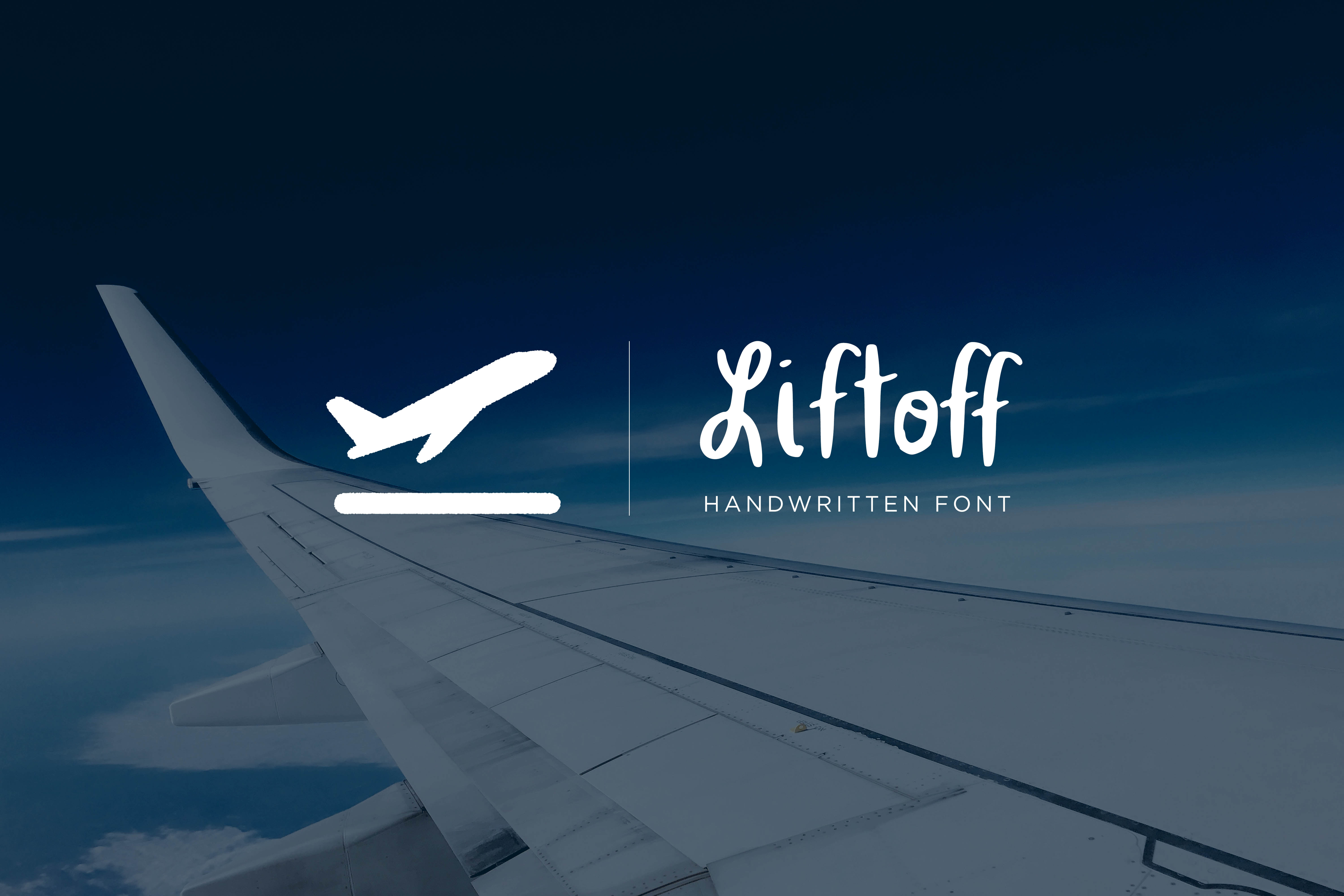
Liftoff Font
A fun script type font! Liftoff is guaranteed to make your text stand out - perfect for logos, printed quotes, invitations, cards, product packaging, headers and whatever your imagination holds!
Liftoff Font • A handwritten font containing upper & lowercase characters, numerals and a large range of punctuation.